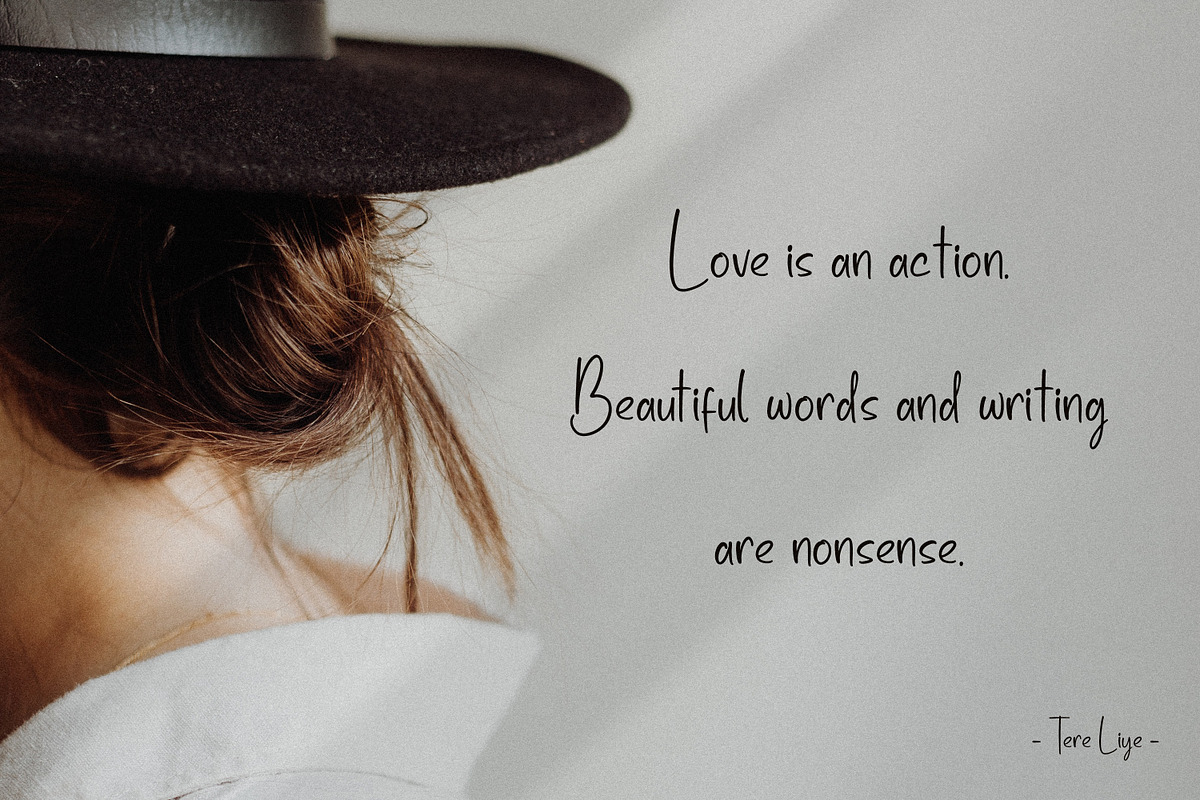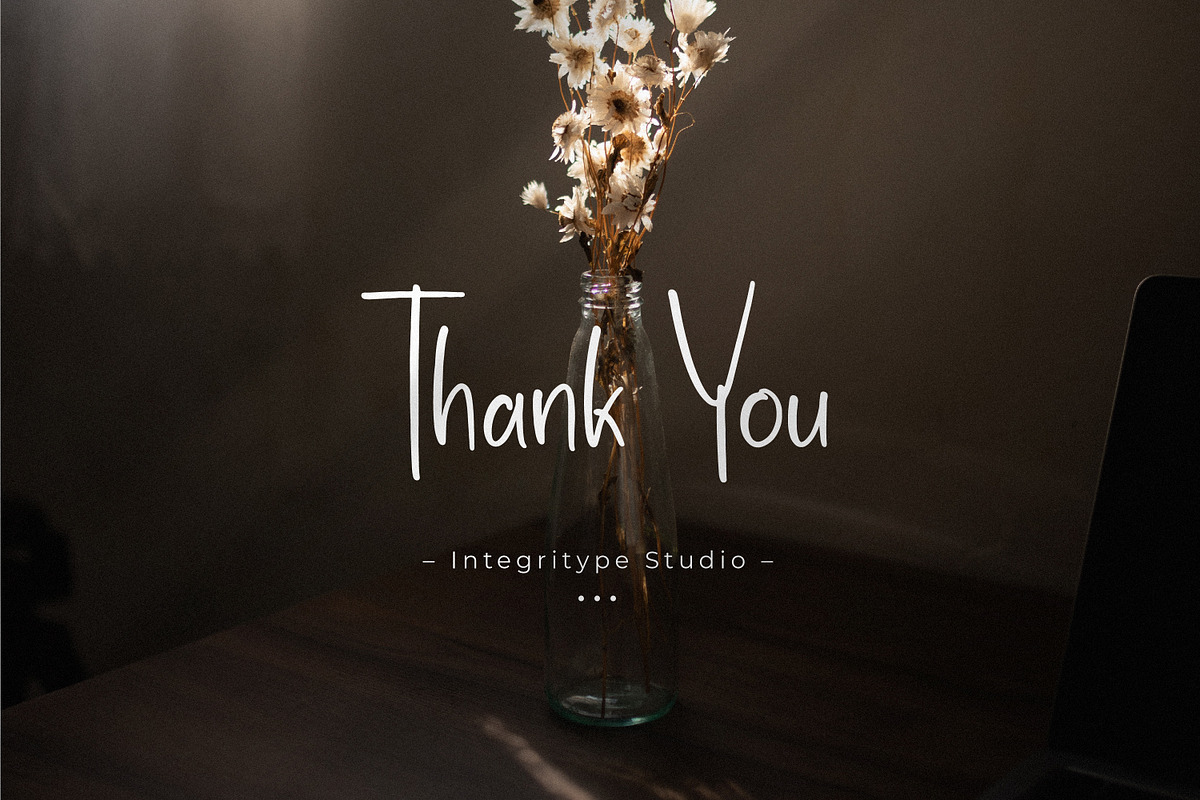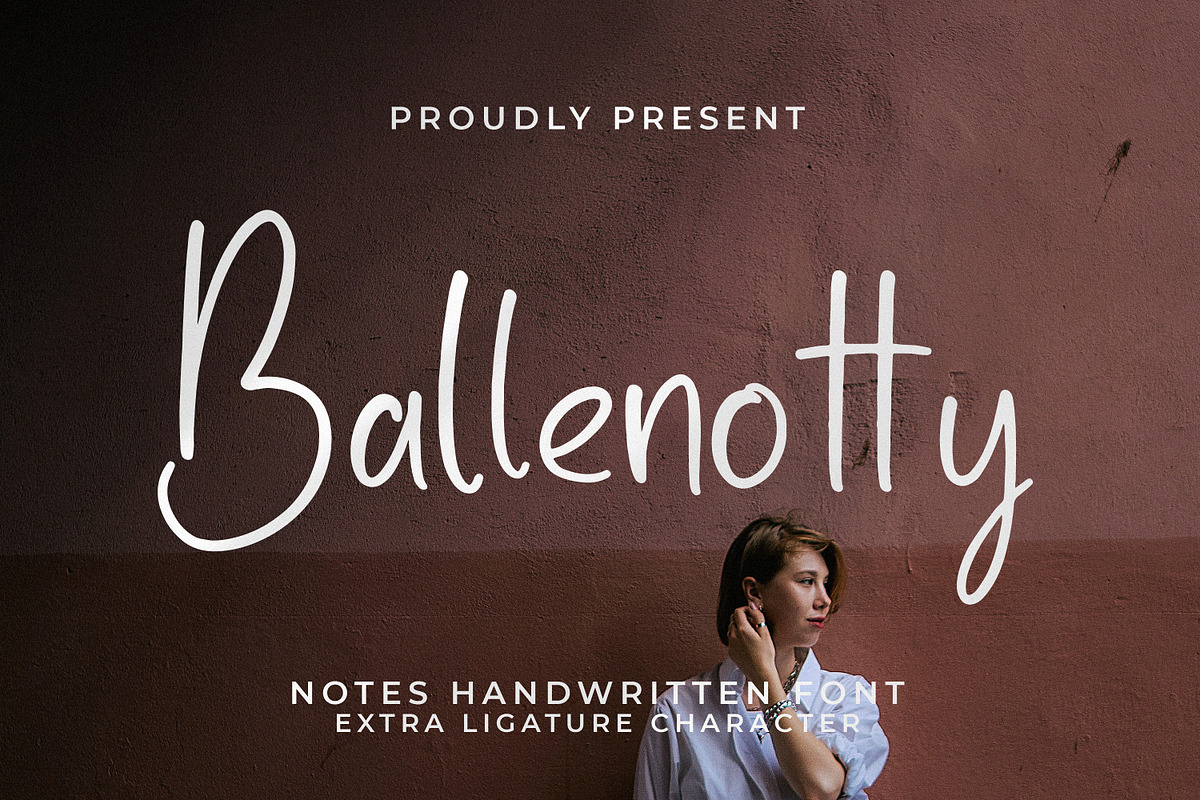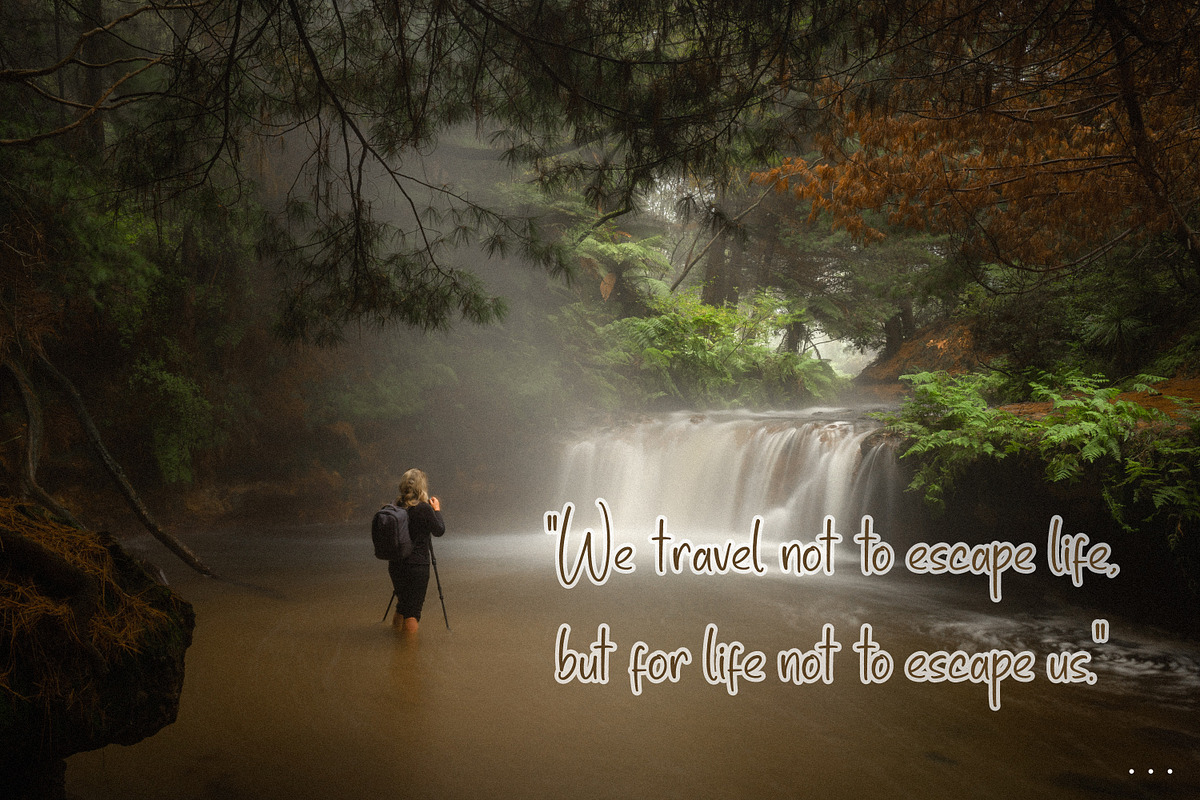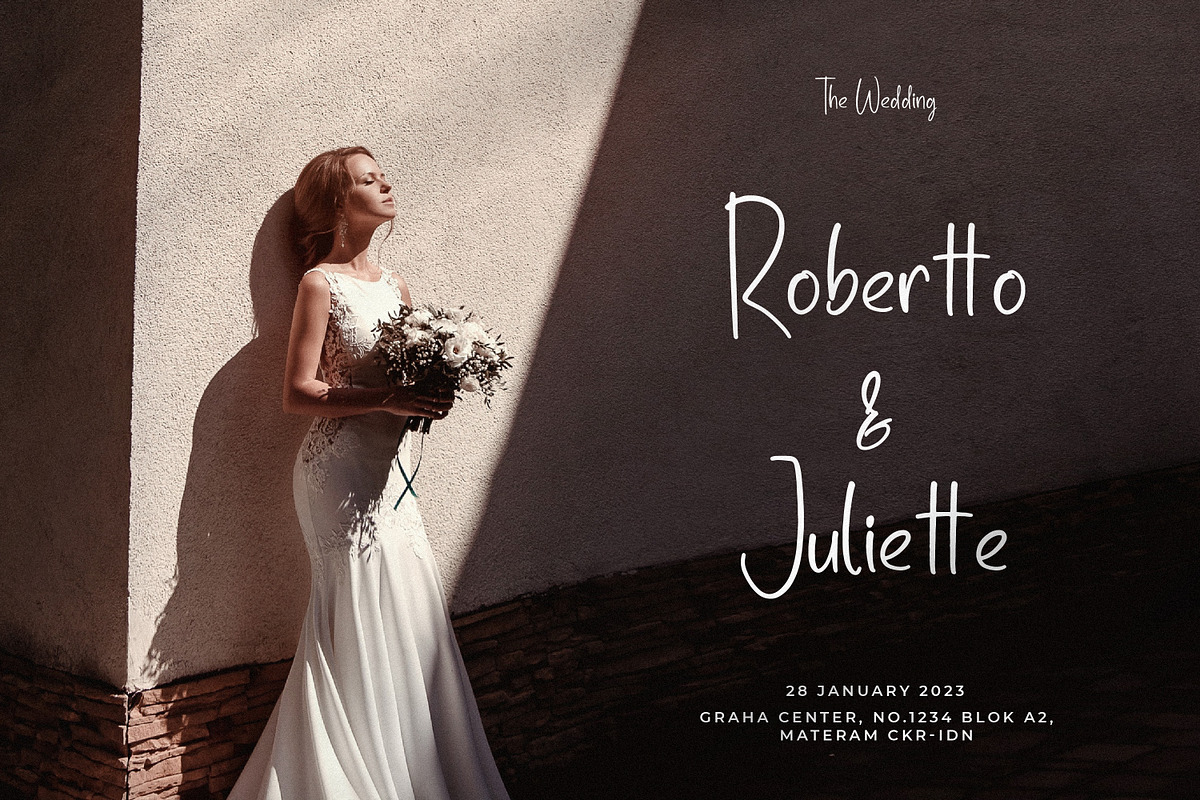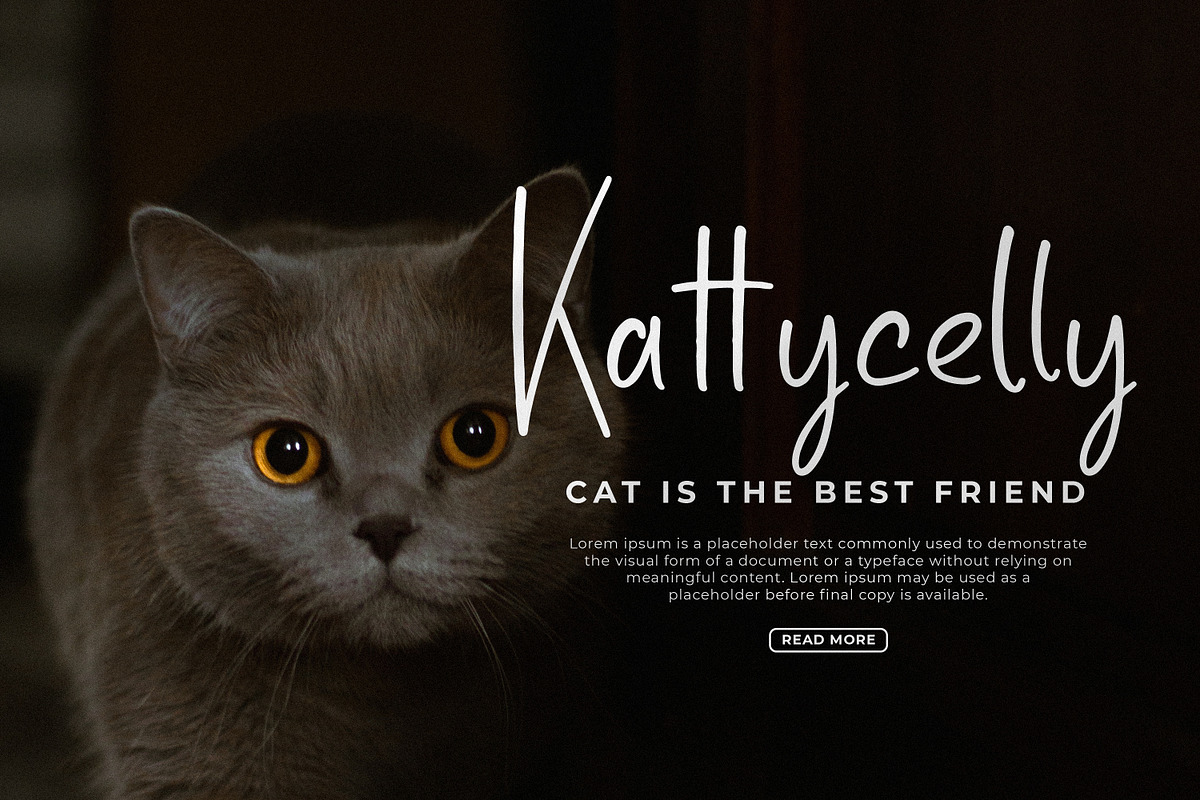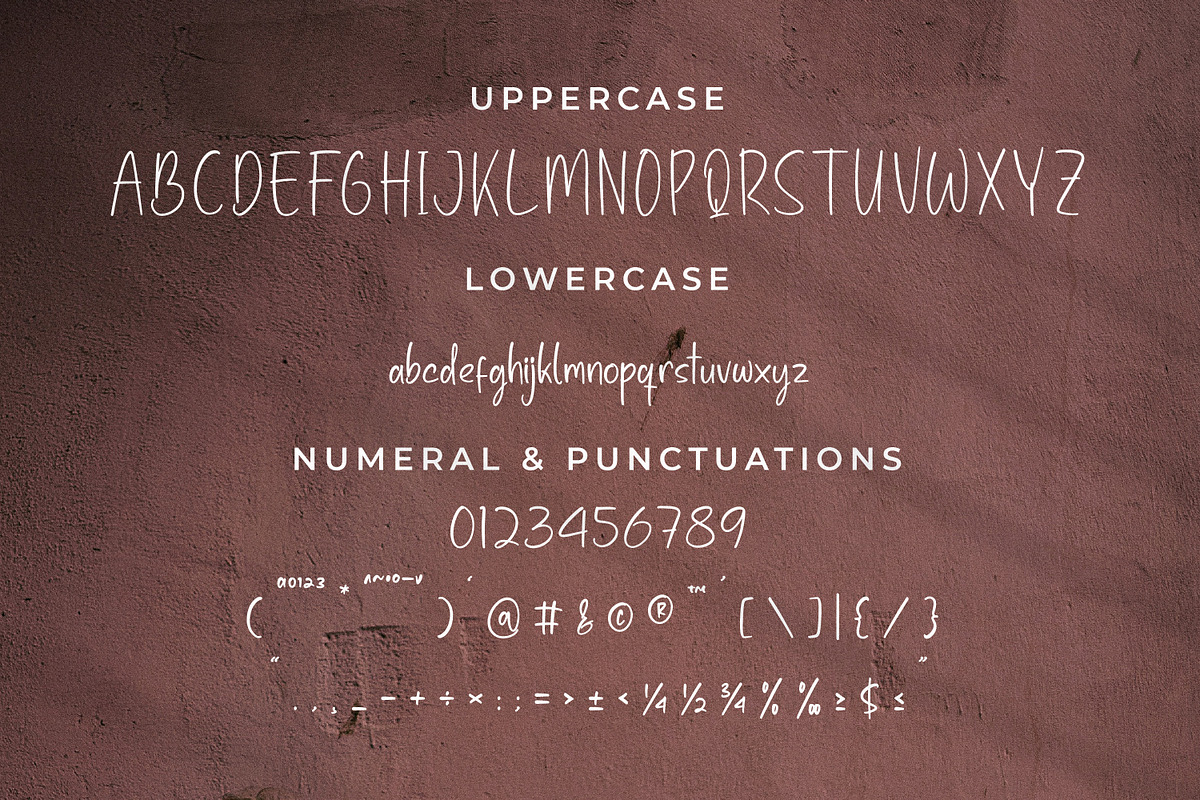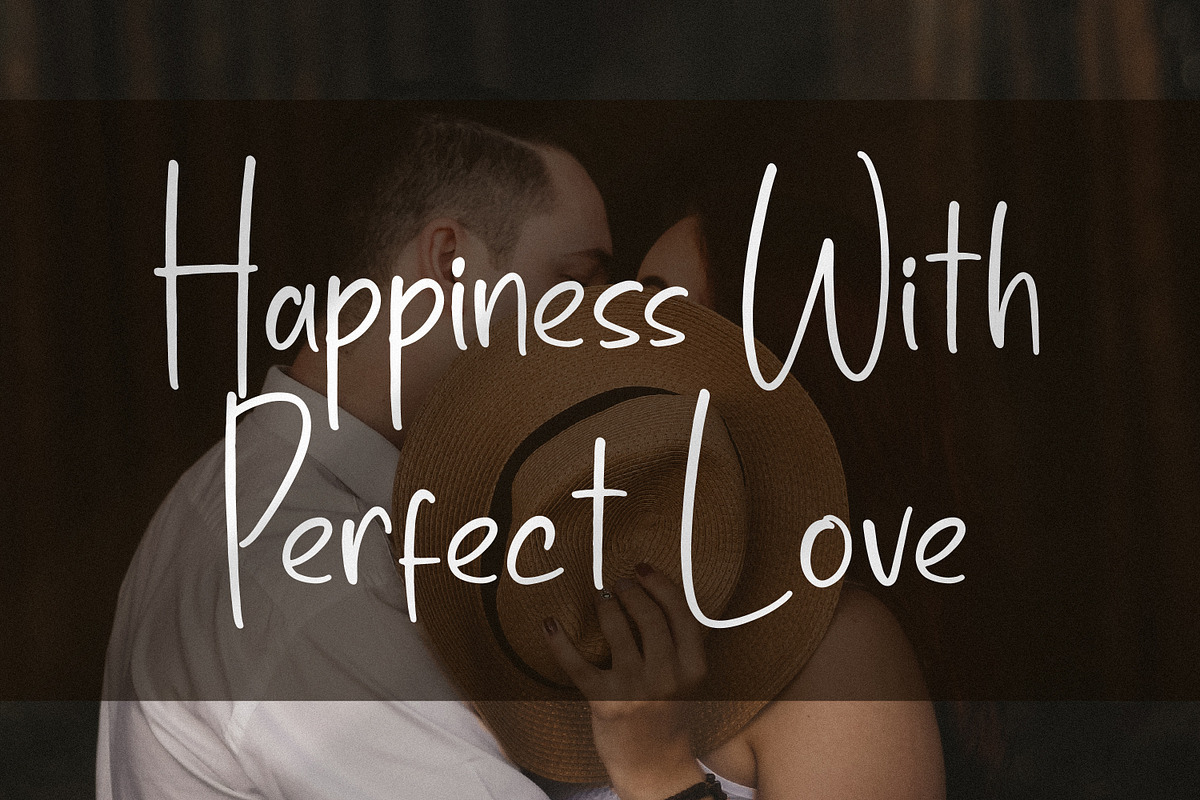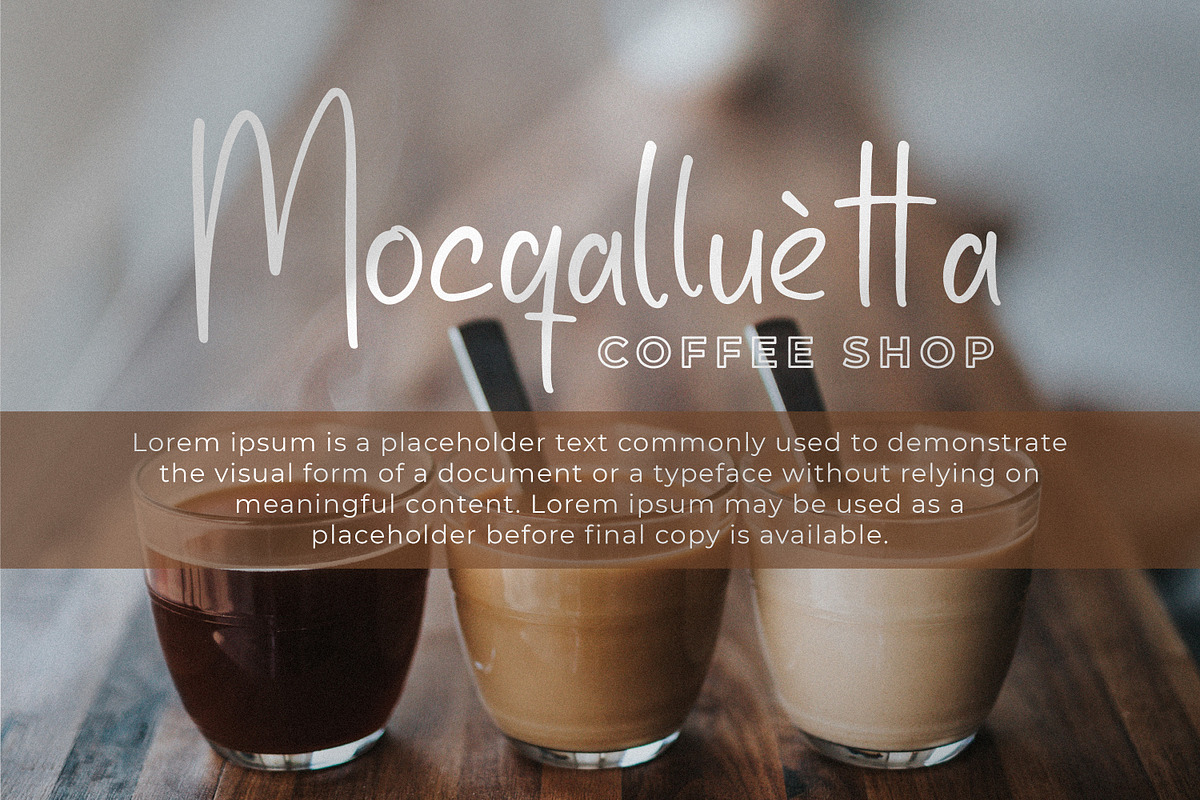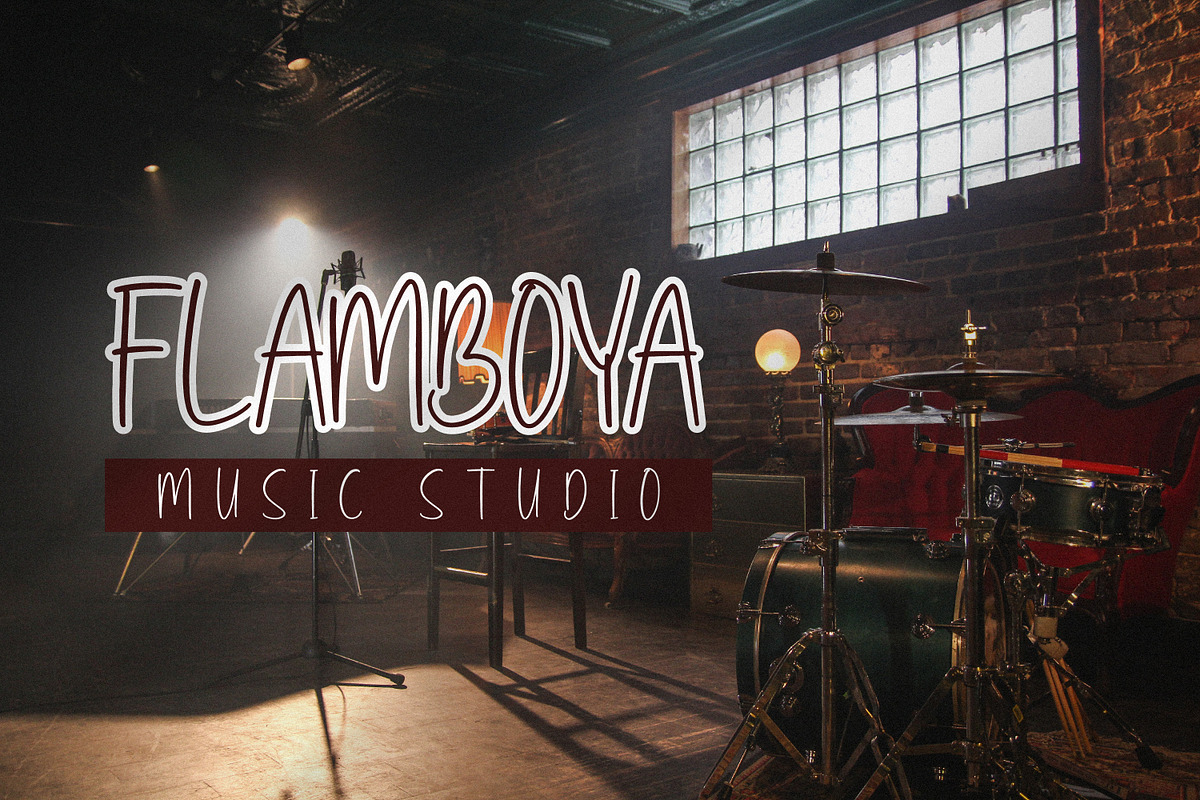
Ballenotty
Ballenotty - Notes Handwritten Font, from Integritype Studio, is a premium Notes Handwritten Font, suitable for any projects such as: logos, branding projects, homeware designs, product packaging, mugs, quotes, posters, shopping bags, t-shirts, book covers, name card, invitation cards, greeting cards, label, photography, watermark, special events, and all your other luxury projects that need a premium signature taste.
Ligature, Alternate & Swashes